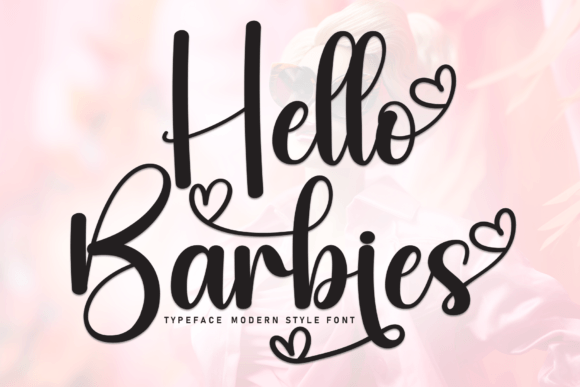
Venture into the realm of impeccable artistry with Hello Barbies, a font that exudes the charm and elegance of a handwritten masterpiece. Designed to evoke a sense of warmth and intimacy, Hello Barbies will add a touch of magic to your creative endeavors.
Unleash your inner artist and explore the boundless possibilities that await you with Hello Barbies. Perfect for adding a personal touch to wedding invitations, cards, and other designs, this font will transform your words into works of art. With its delicate strokes and charming imperfections, Hello Barbies captures the essence of romance and heartfelt emotion.
Imagine your wedding invitations adorned with the graceful curves and flowing lines of Hello Barbies. It will set the tone for your special day, creating an atmosphere of love and joy that your guests will cherish forever. Each letter, lovingly crafted, will become a testament to your love story, adding a touch of timeless elegance to your celebration.
Beyond wedding invitations, Hello Barbies shines as the perfect font for cards, posters, and any design that calls for a touch of whimsy and charm. Its versatility knows no bounds, adapting effortlessly to various styles and themes. Whether you're creating a whimsical poster for a children's party or a sophisticated invitation for a corporate event, Hello Barbies will elevate your design with its unique and captivating flair.
With Hello Barbies, you'll have the power to transform ordinary words into heartfelt expressions. Its sweet and delicate nature will add a layer of depth and emotion to your designs, ensuring that your message resonates with your audience. So, embrace the beauty of handwritten artistry and let Hello Barbies guide you on a creative journey that will leave an everlasting impression.